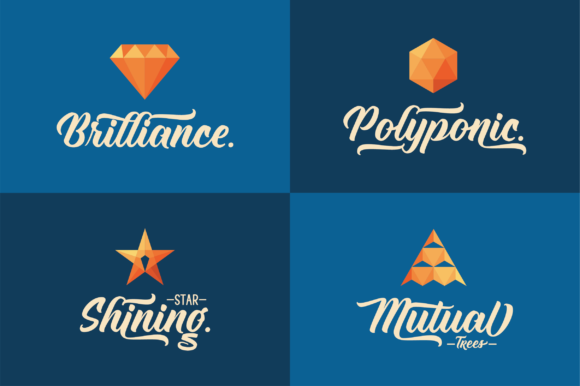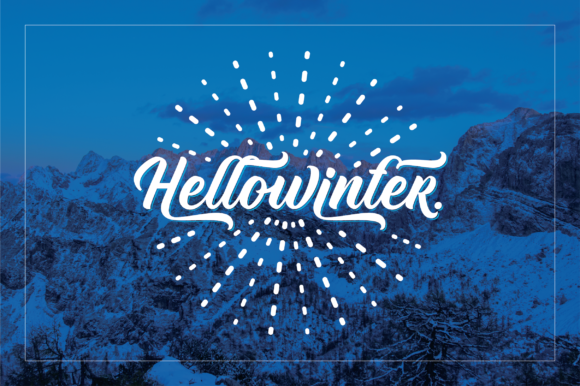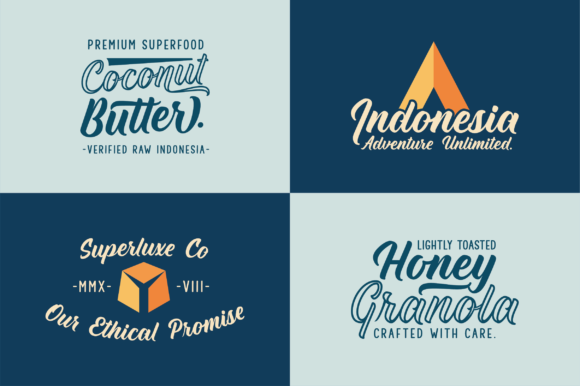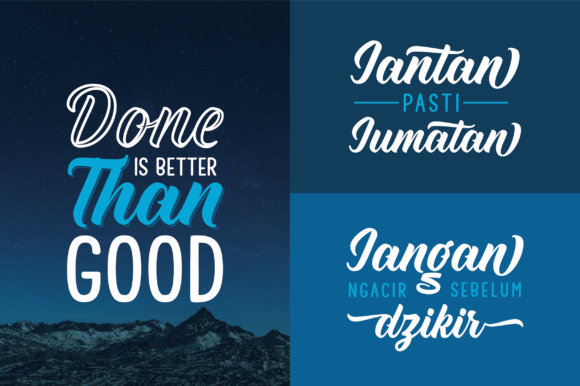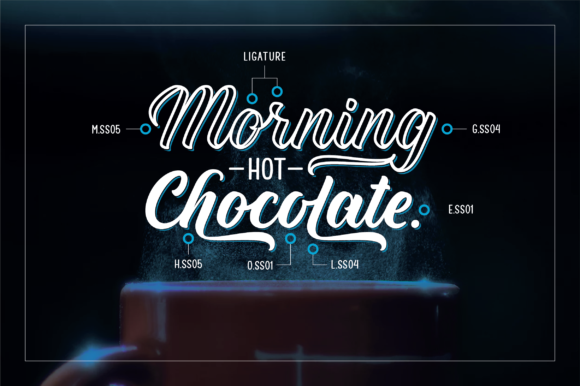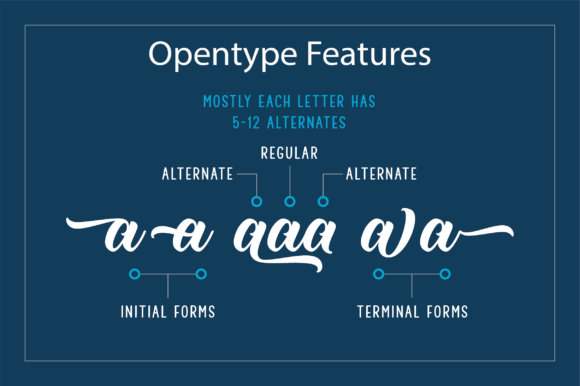
The Clastic Font
About The Clastic Font
The Clastic is an authentic basic brush typeface with 2 different styles, which both come in script and sans. These two cool fonts can be perfectly combined for every design.